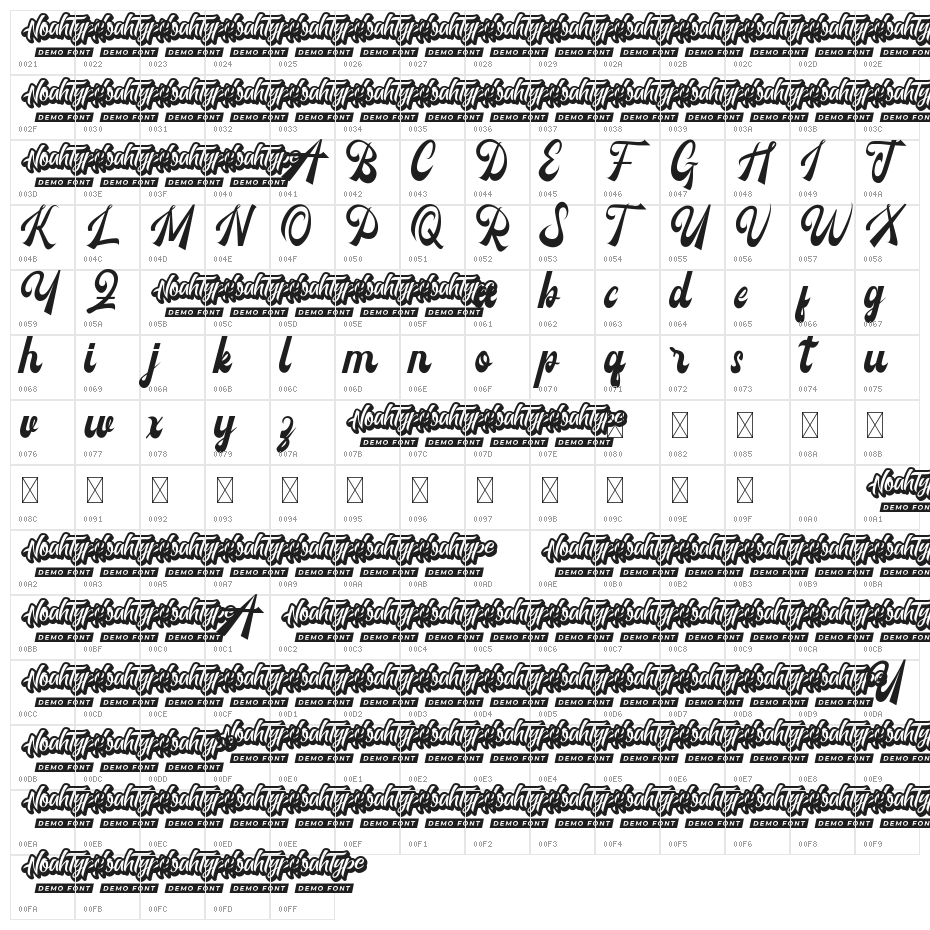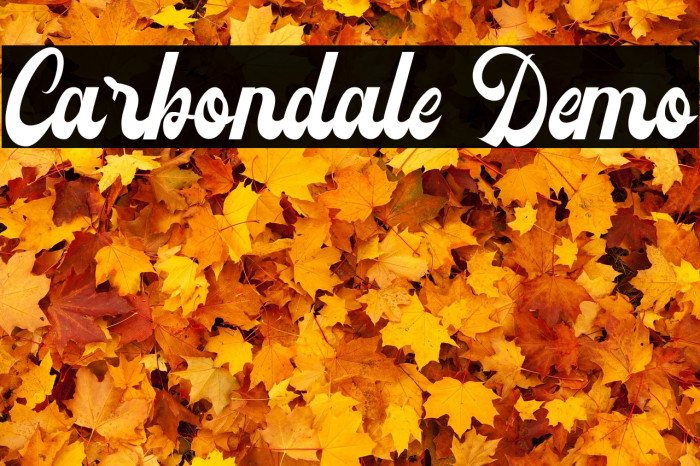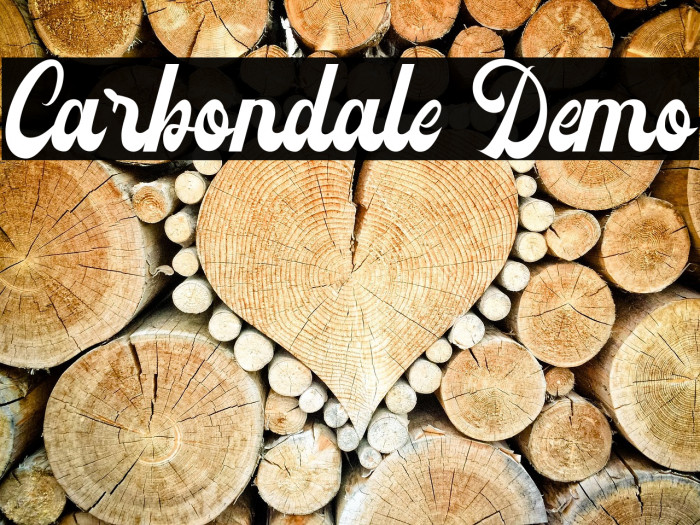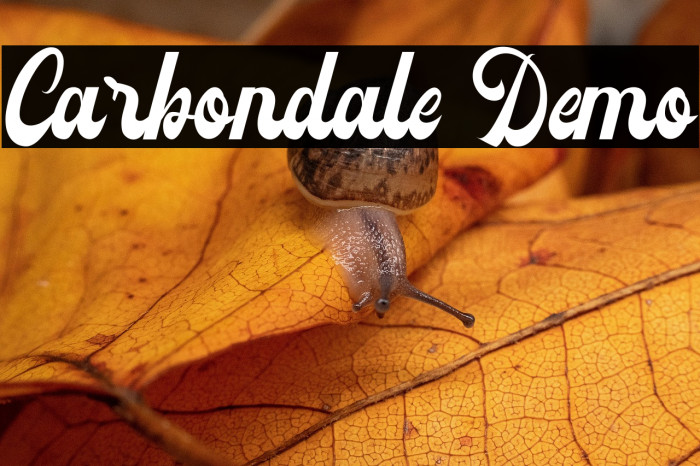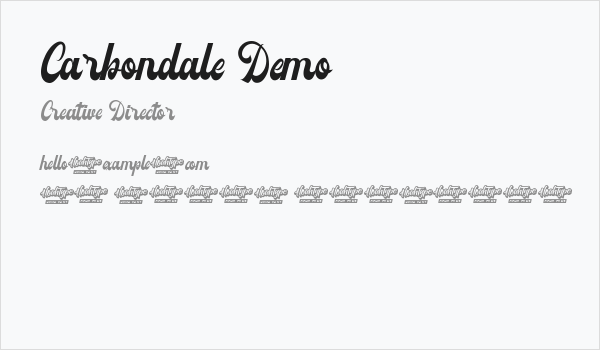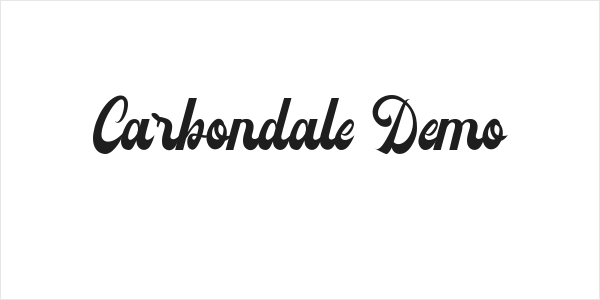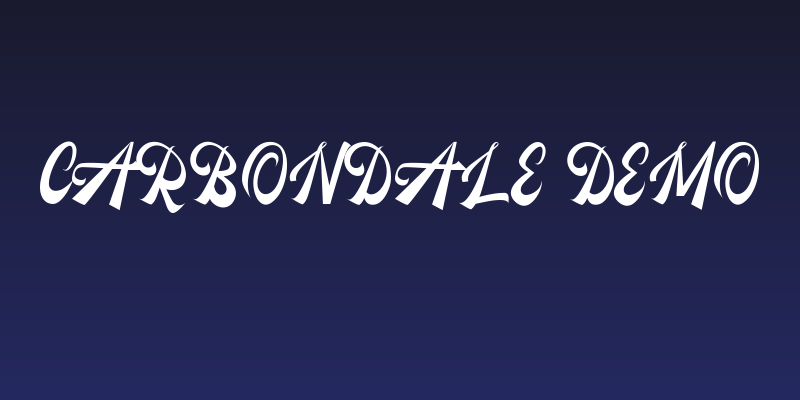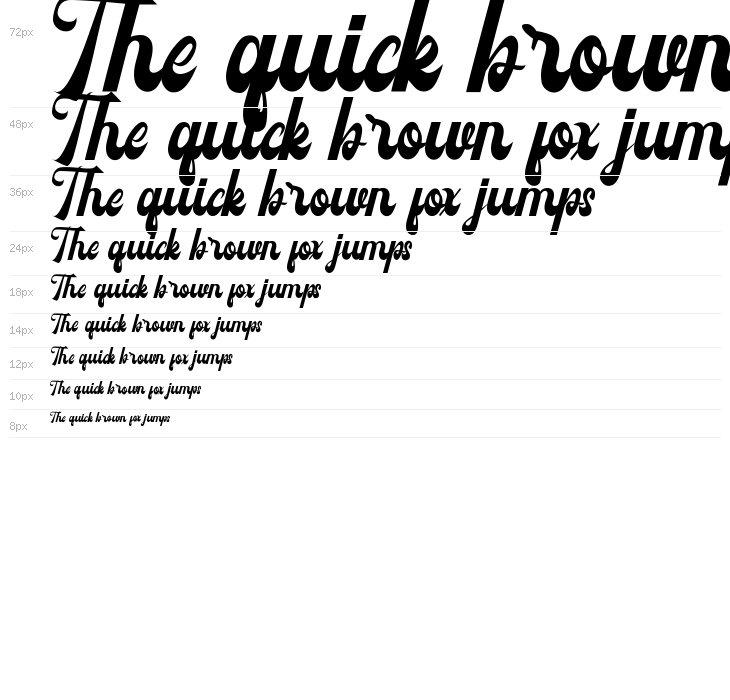
Carbondale Demo Font
Carbondale Demo Description
This font exhibits a bold and dynamic script style, characterized by its flowing, cursive letterforms that convey a sense of elegance and movement. The uppercase letters are particularly striking, with exaggerated flourishes and a slight slant that adds to the overall fluidity. The lowercase letters maintain a consistent style, with smooth curves and a harmonious connection between characters. The font's bold weight and high contrast between thick and thin strokes enhance its visual impact, making it suitable for attention-grabbing designs. The spacing between characters is relatively tight, contributing to its cohesive appearance. This font is ideal for projects that require a touch of sophistication and flair.